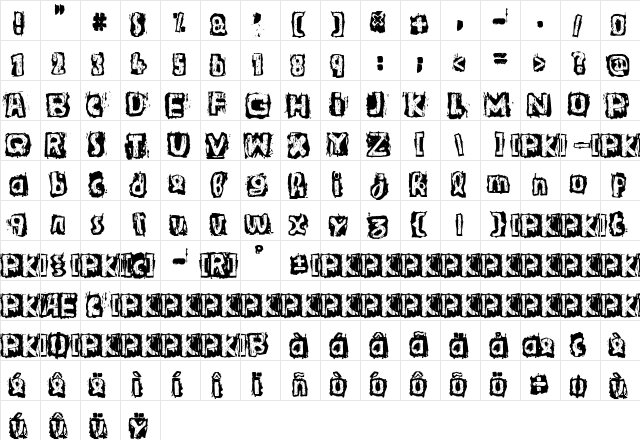
Guignols Band Regular
| Designer | paintblack |
Design Context for Guignols Band Typeface
Guignols Band is a composed and adaptable typeface that performs quietly and consistently across a wide range of design contexts.